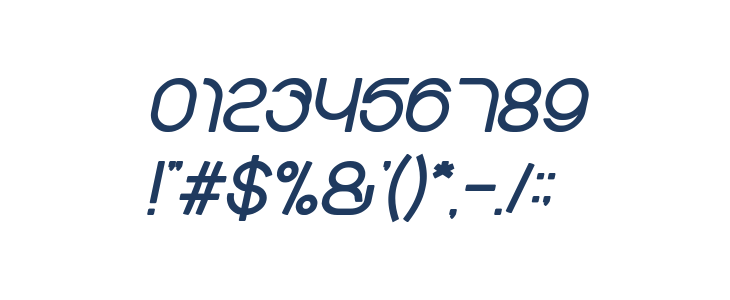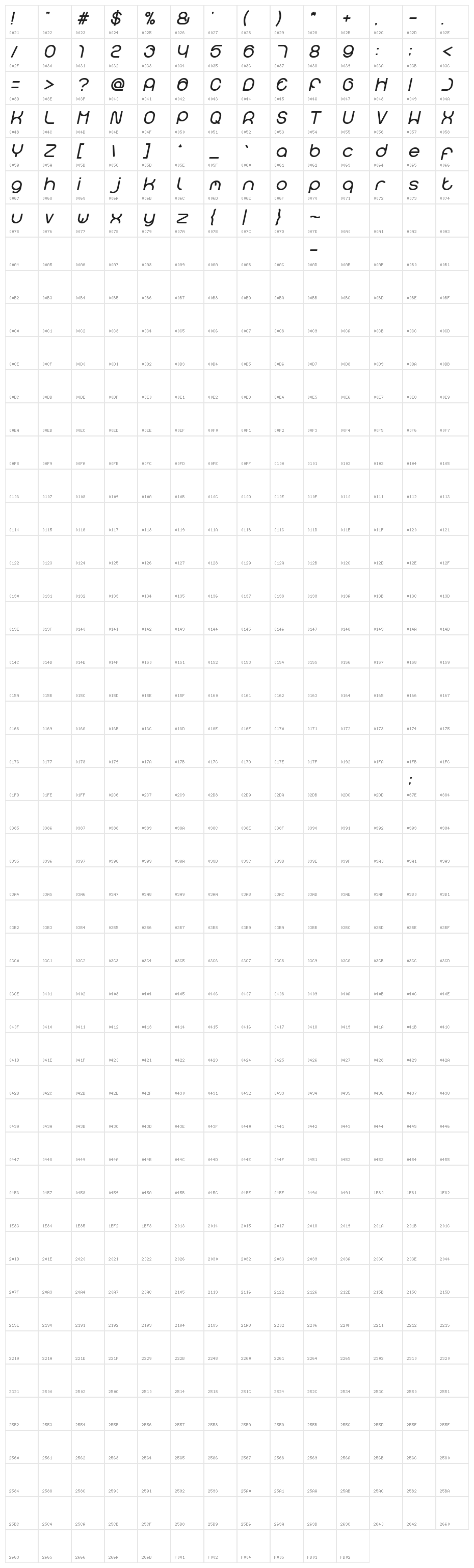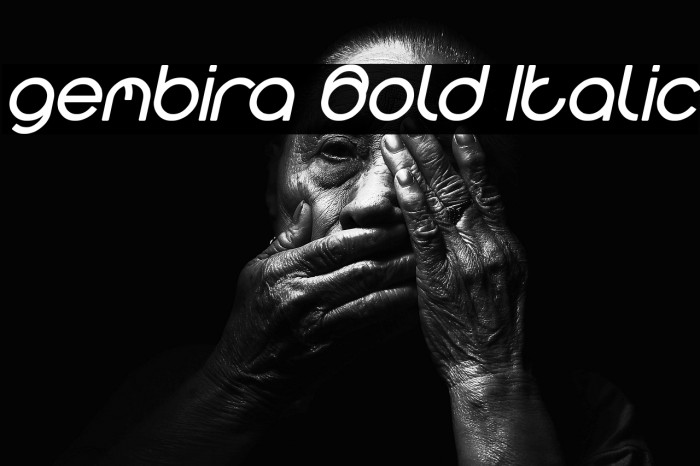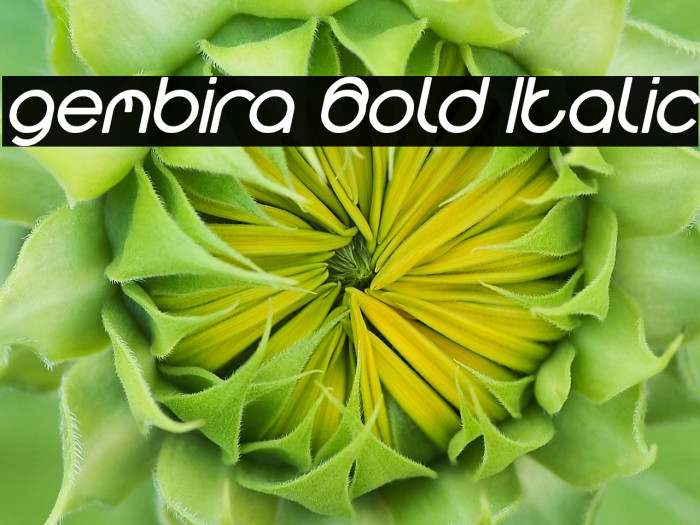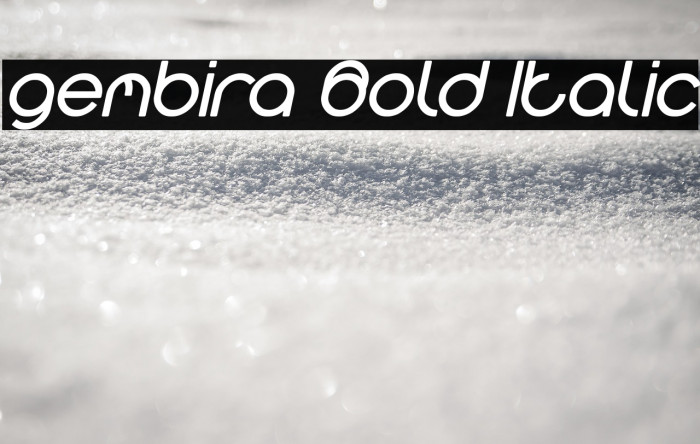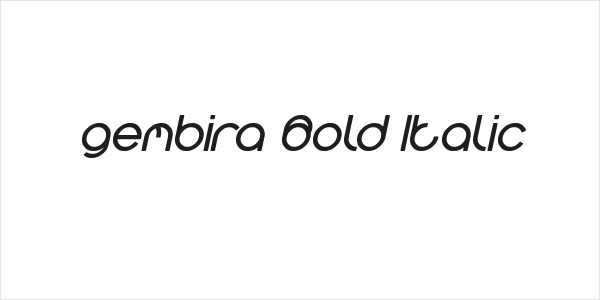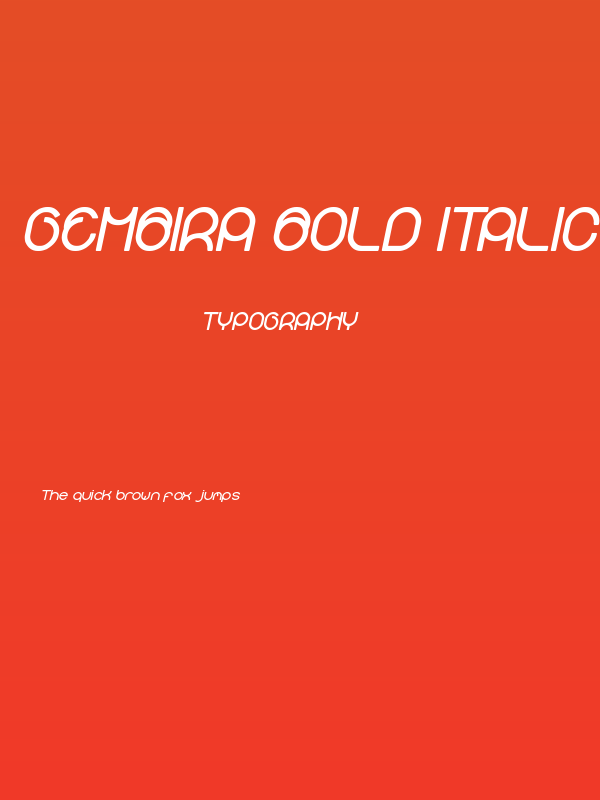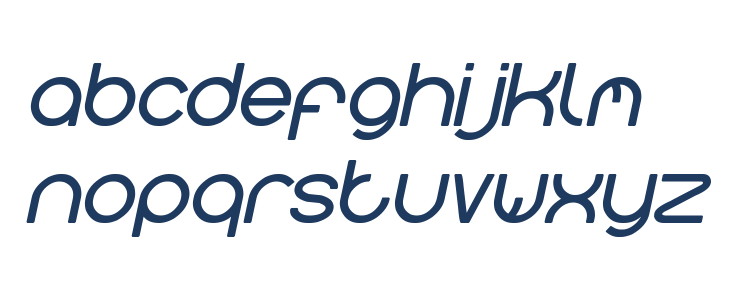
gembira Bold Italic Font
gembira Bold Italic Description
This font features a bold and italic style with a modern, dynamic appearance. The characters exhibit a smooth, flowing design with rounded edges, giving it a friendly and approachable feel. The uppercase and lowercase letters maintain a consistent style, with a slight slant that adds to the italic effect. The numerals are clear and easy to read, while the special characters are well-integrated into the overall design. The font's bold weight ensures strong visibility, making it suitable for various applications where emphasis is needed.
| Proposed Projects | Ideal for branding, advertising, and headlines where a modern and bold statement is desired. |